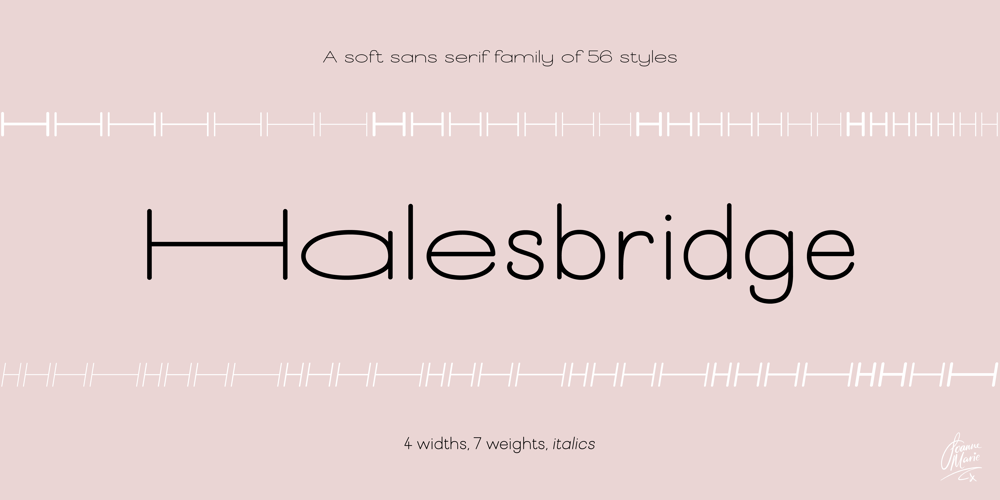
Halesbridge Font Family was designed by Joanne Hewitt and published by Joanne Marie. Halesbridge contains 56 styles and family package options. Halesbridge is a soft sans serif font family consisting of 7 weights (from hairline to black), 4 widths (regular to super wide) and all styles are in italic. Many languages are supported (see the picture showing the international glyphs).It’s simple letterforms make it easy on the eyes for reading large amounts of body text and looks very modern, especially in the lighter weights. This family is perfect for editorial design, website design and general informative media. However, I can see endless possibilities for typographic logo designs because of the different widths and weights.Overall, this font family will be a great addition to your design assets, commanding the attention your creative projects deserve.For regular updates and freebies please follow me on Instagram at joannemarie_cm